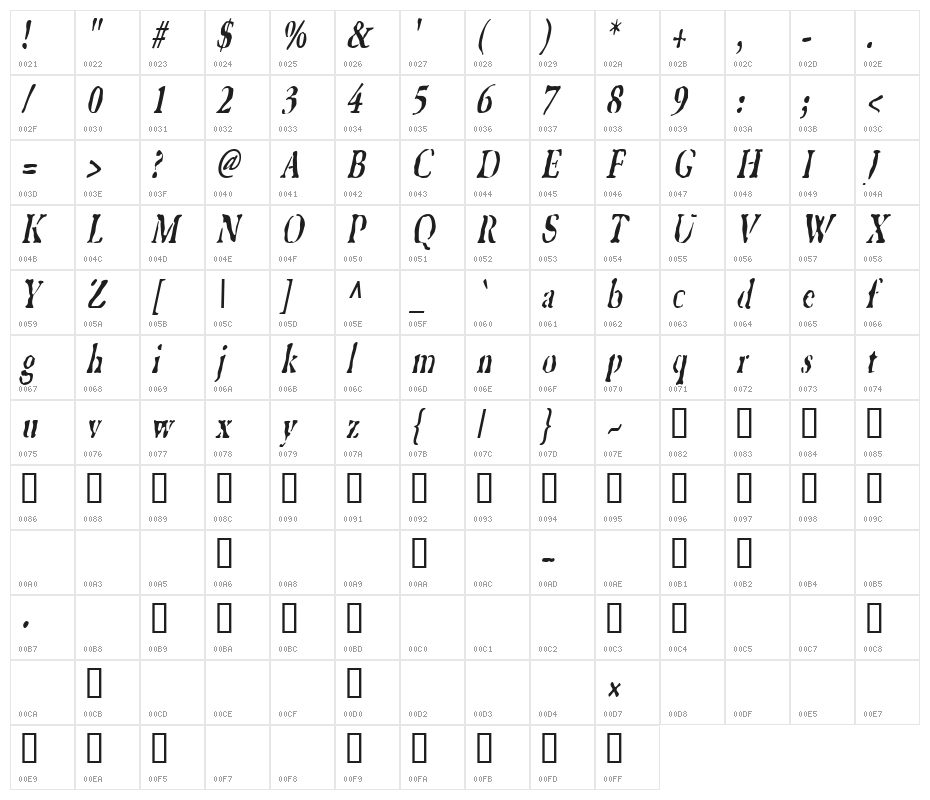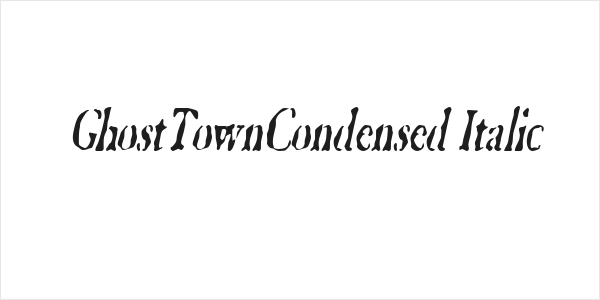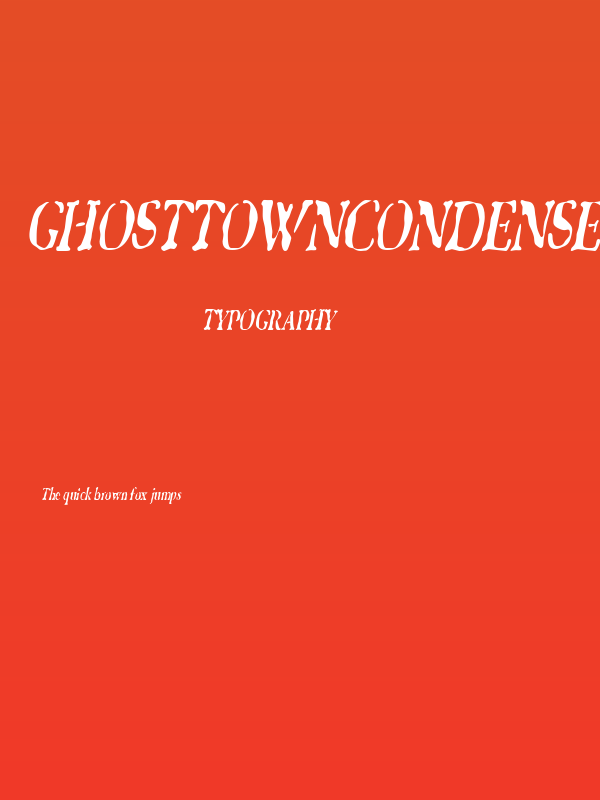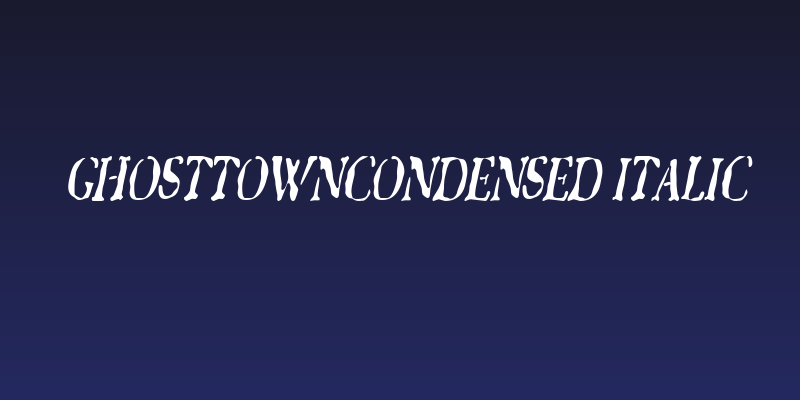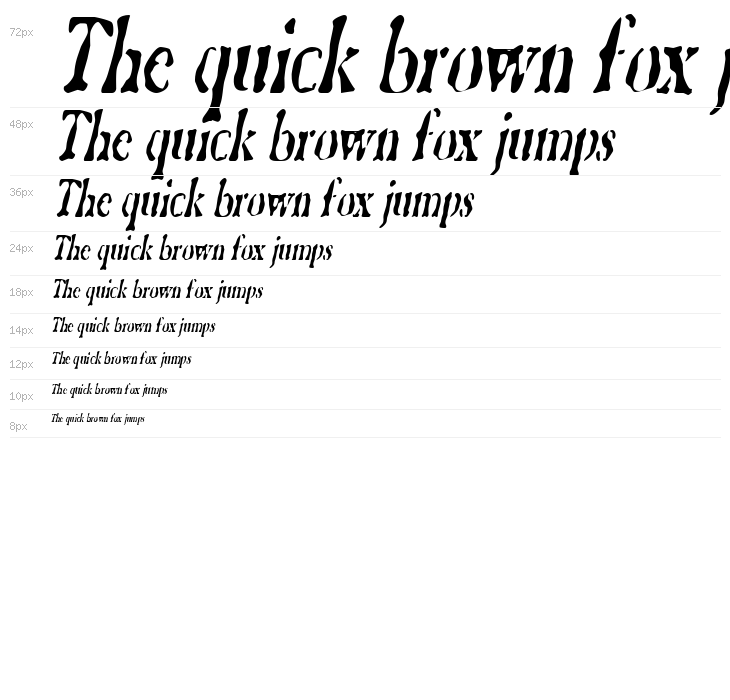
GhostTownCondensed Italic Font
GhostTownCondensed Italic Description
This font exudes a rugged and distressed aesthetic, featuring a condensed and italicized style that gives it a unique, hand-crafted appearance. The strokes are uneven and jagged, adding to its ghostly, vintage charm. The uppercase and lowercase letters maintain a consistent slant, enhancing the italic effect. Numbers and special characters follow the same stylistic cues, ensuring uniformity across all glyphs. The font's boldness and condensed nature make it stand out, while the irregularities in stroke width contribute to its high contrast and dynamic look.
| Proposed Projects | Ideal for horror-themed posters, vintage signage, album covers, or any project needing a bold, eerie aesthetic. |